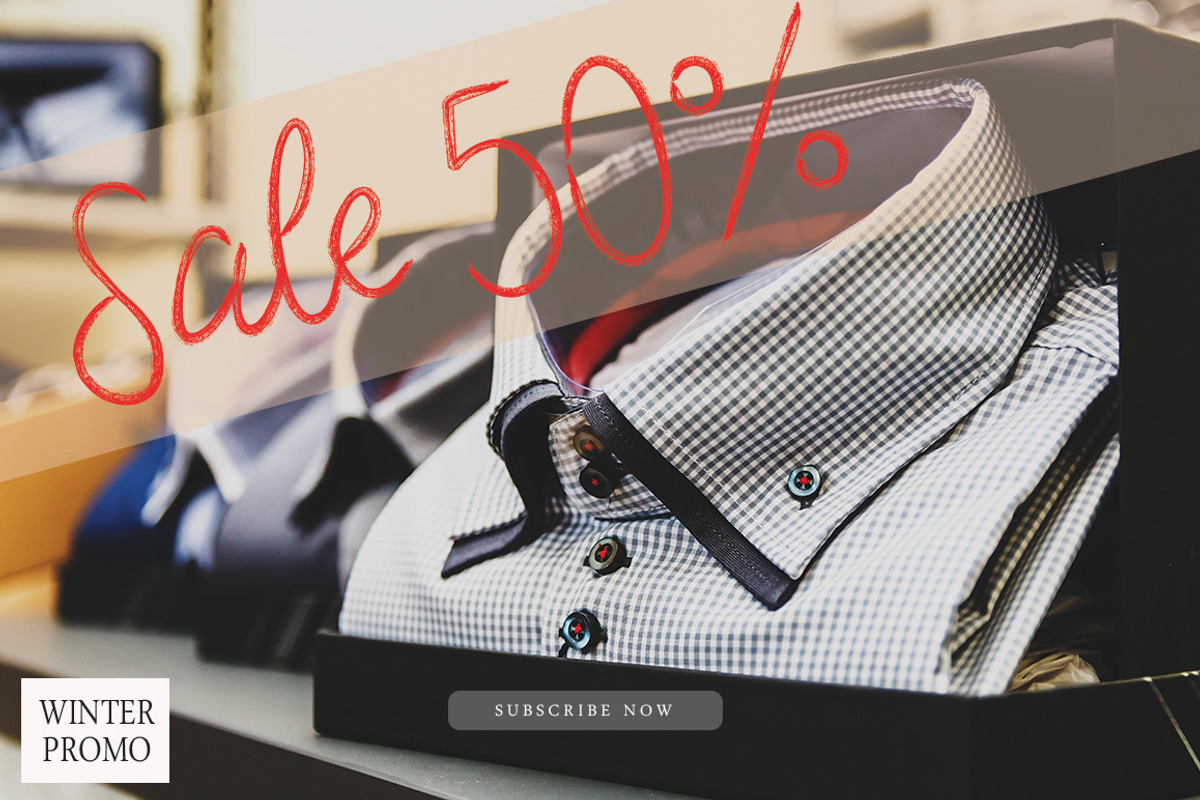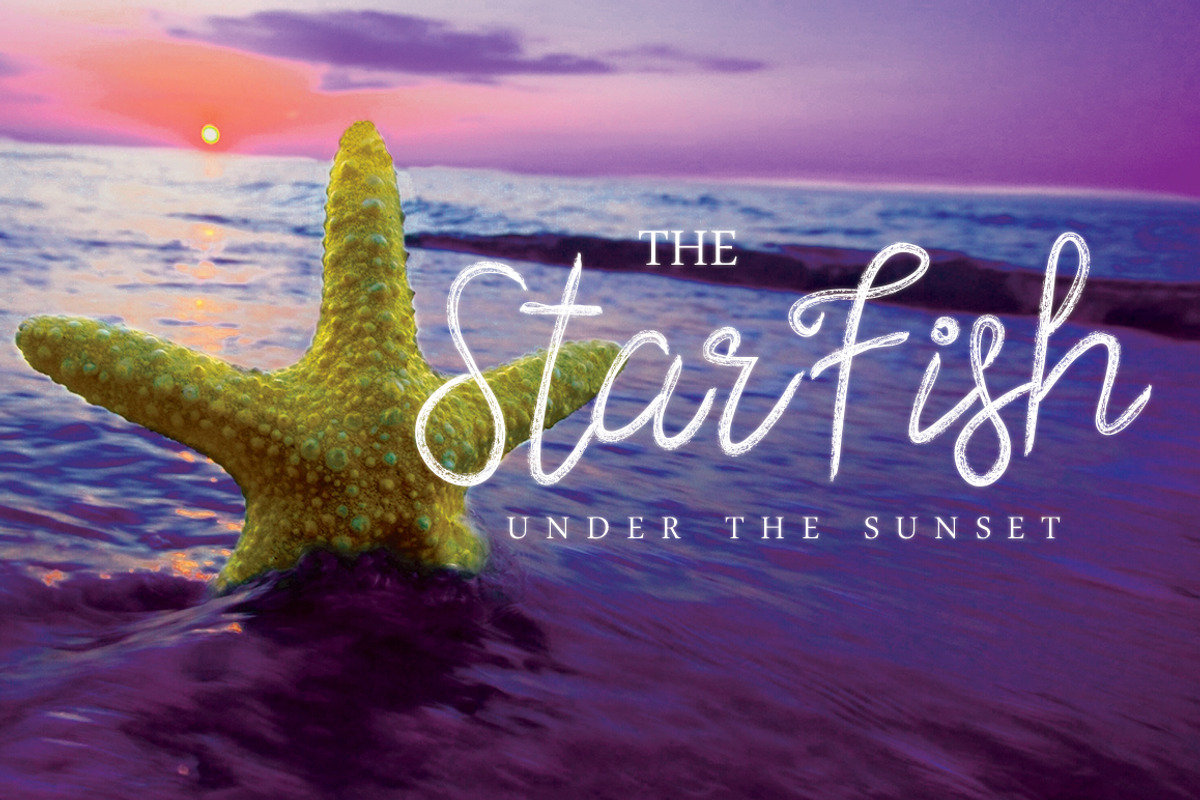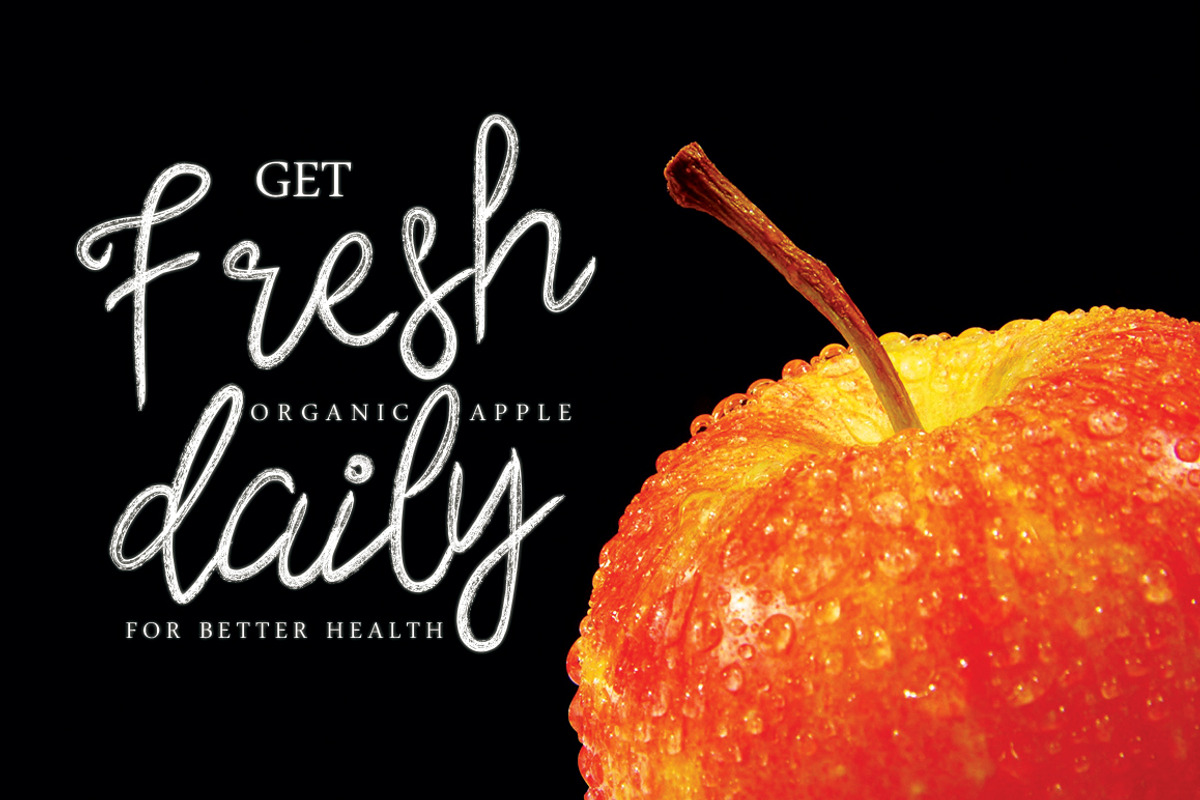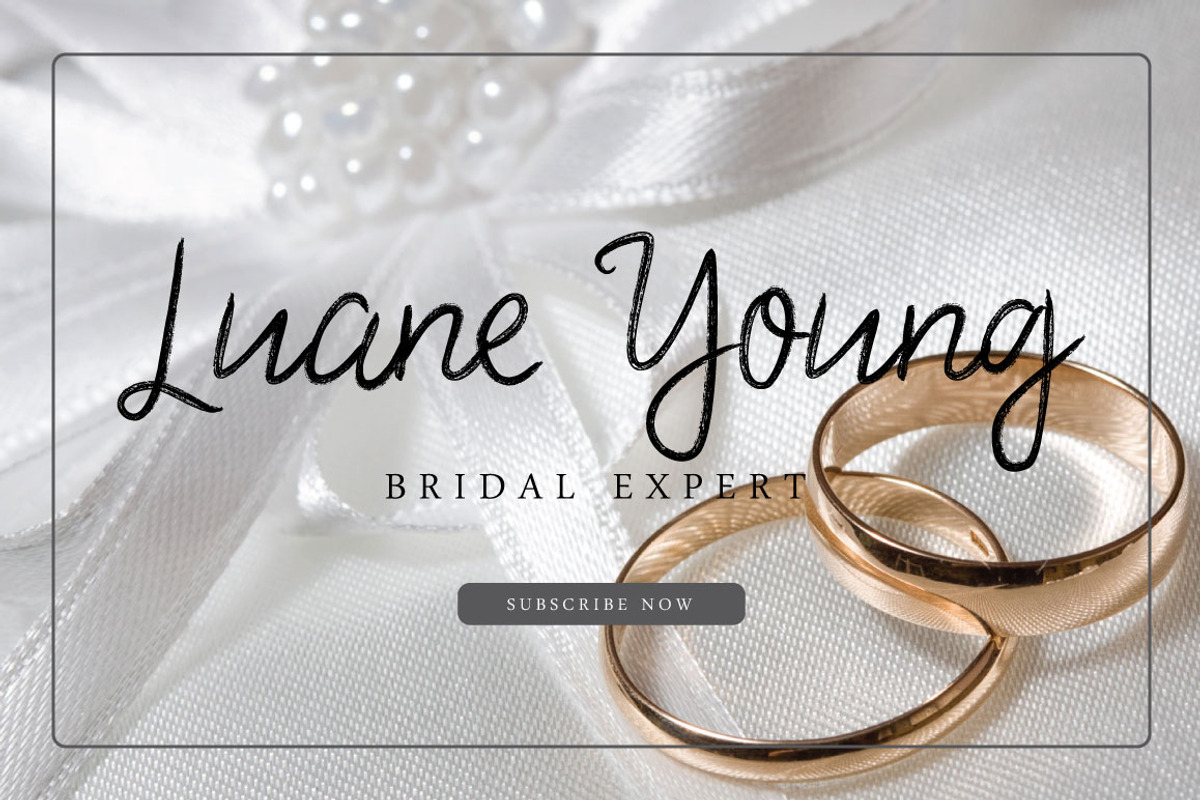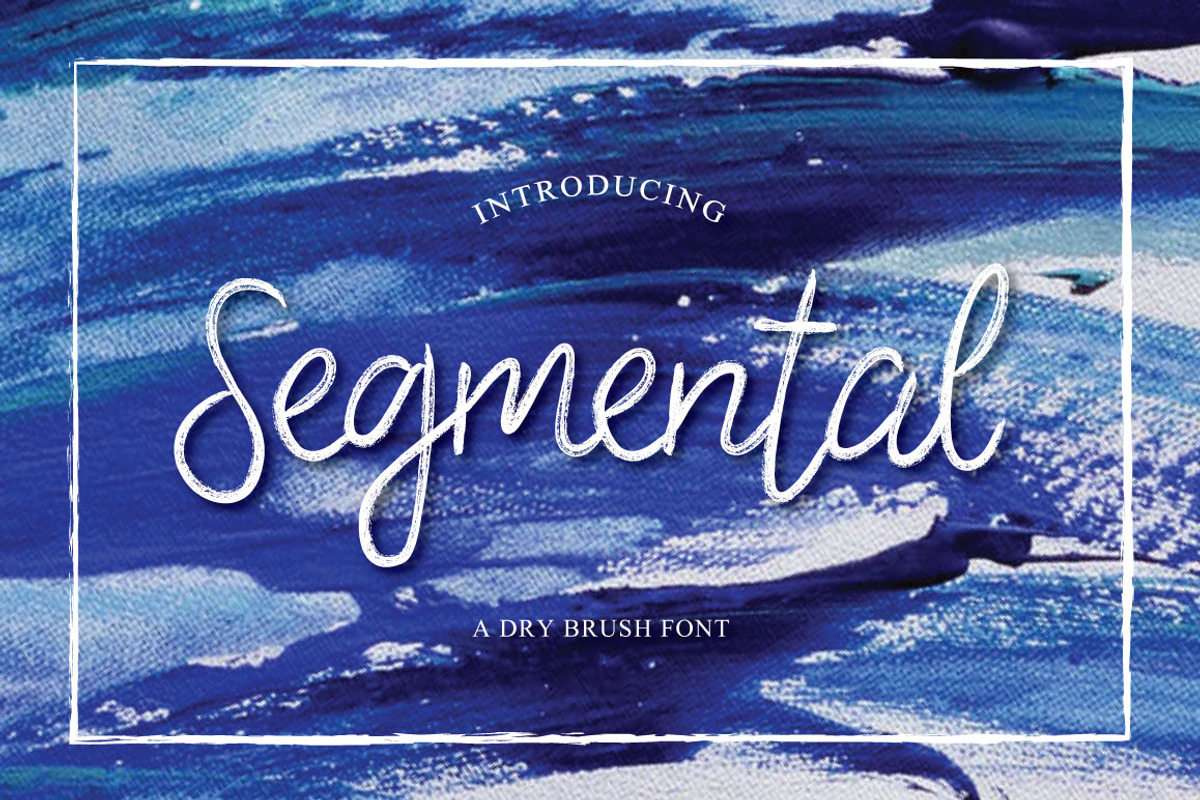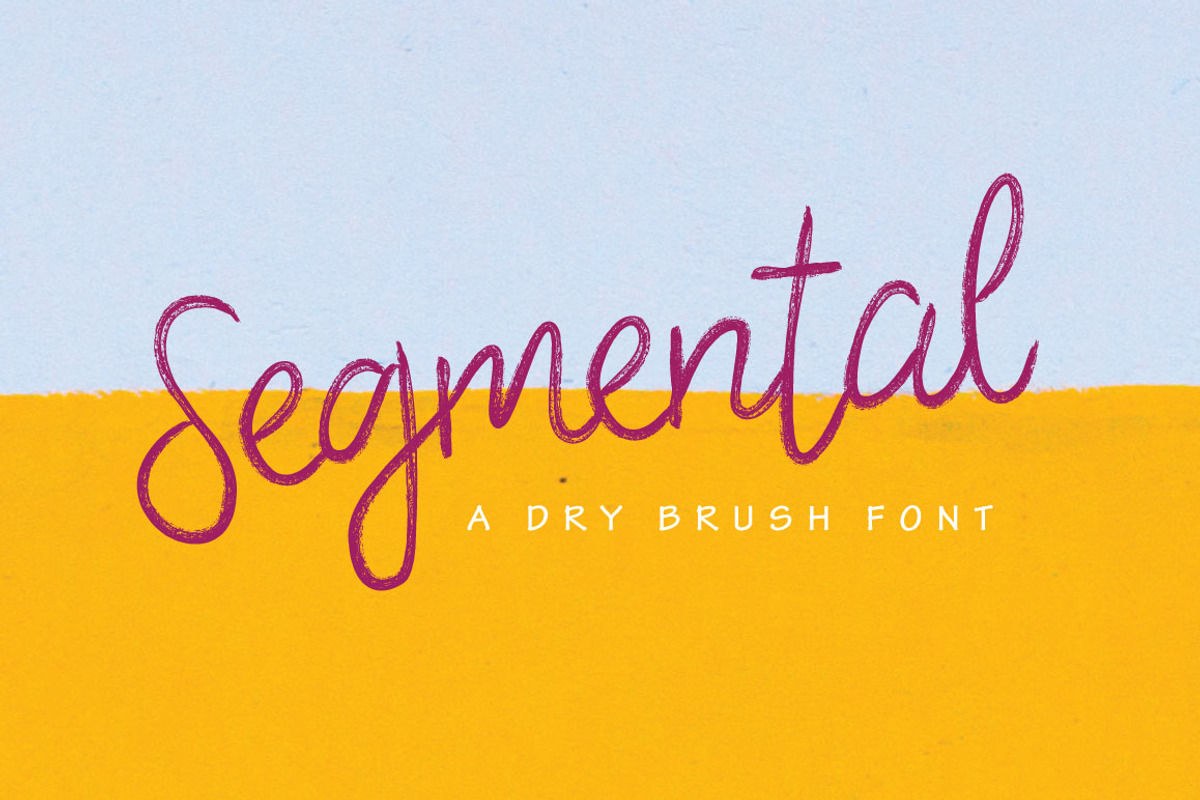
Segmental Brush Font
Segmental is a dry brush font which unique and fast writes imperfect hand written look & just the right amount of texture. Balancing between scrawl and rush style to help you create the look of strange custom hand-lettering. Segmental is just what you've been looking for!
Use Segmental on all of your projects to give it a flawed hand brushed font. In specific would look great on, branding projects, logos, product packaging, posters, invitations, greeting cards, titles, blogs, everything that includes personal charm and you name it. ;)
Segmental Brush Font by Face Lab fits naturally into Branding, posters, packaging, typography.